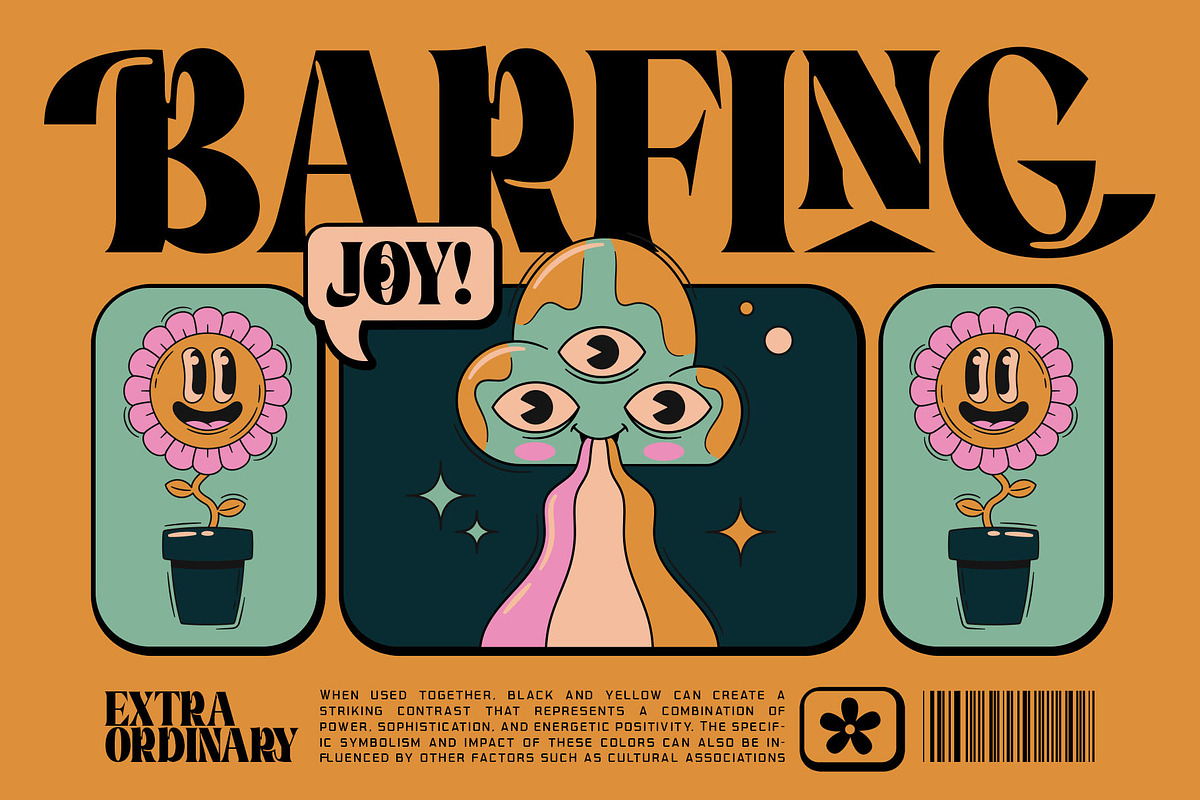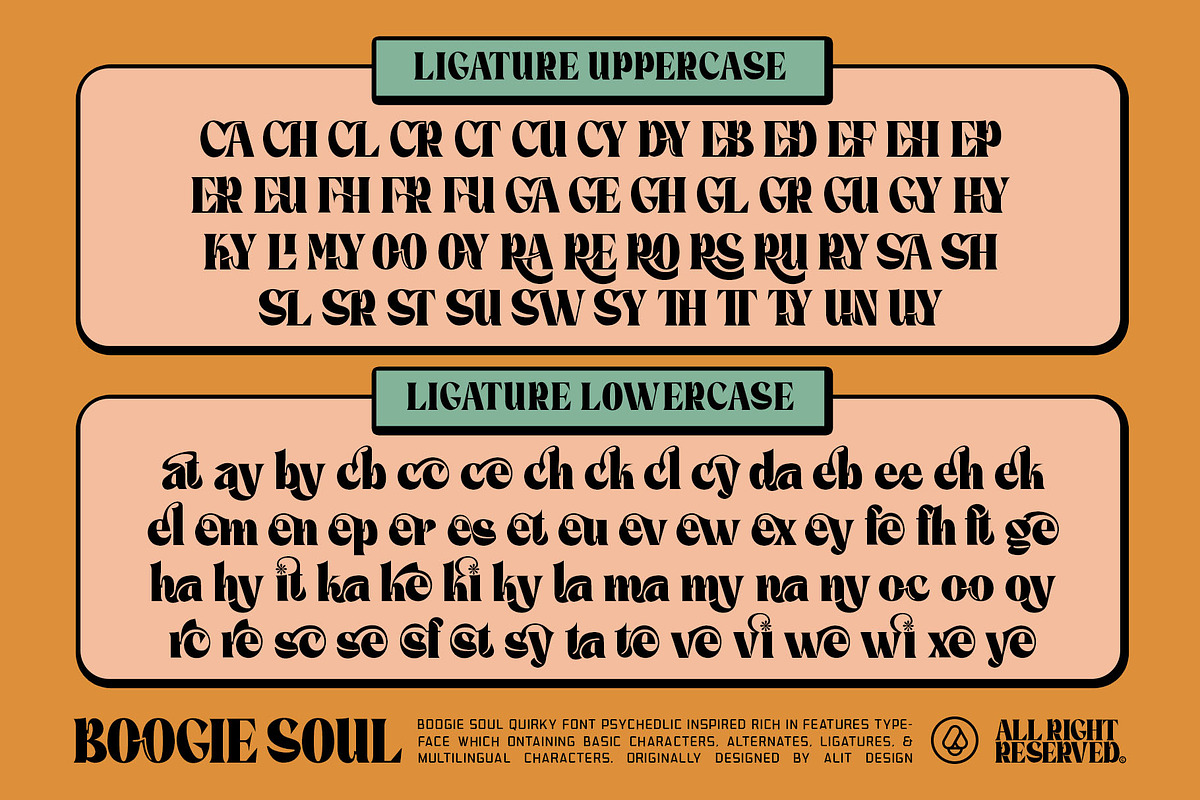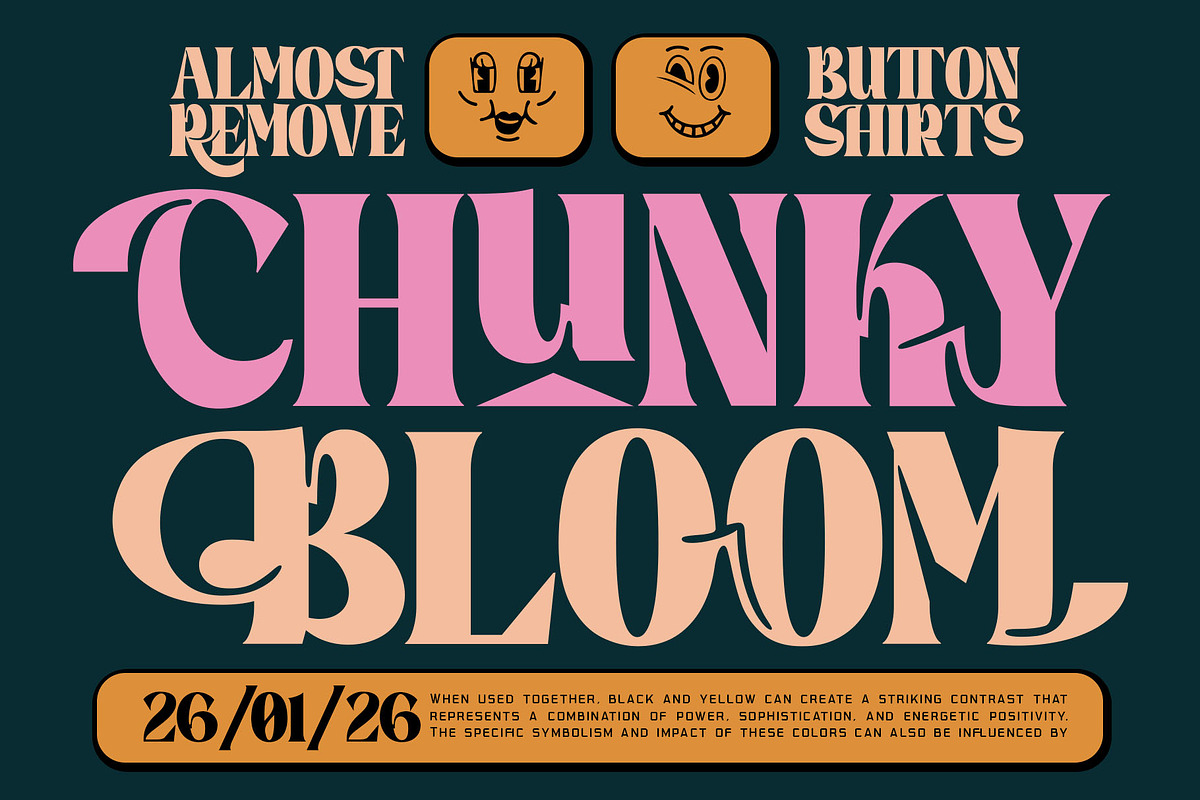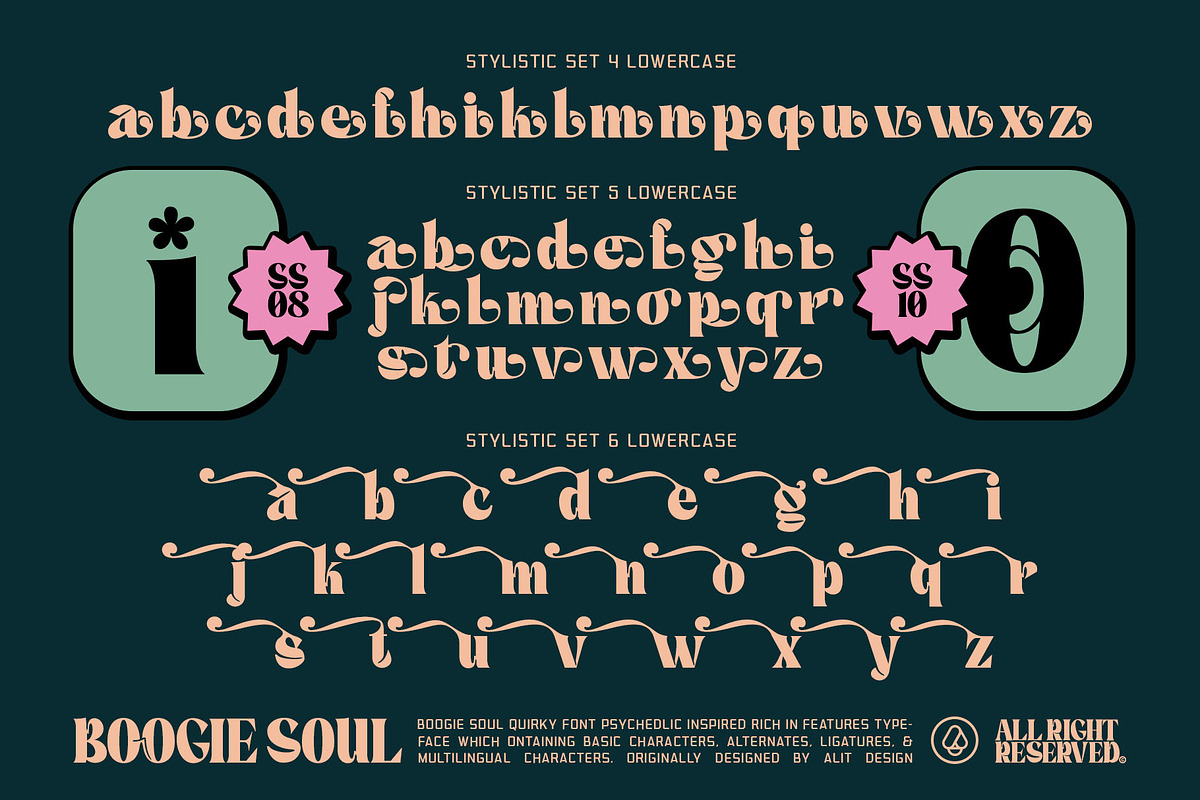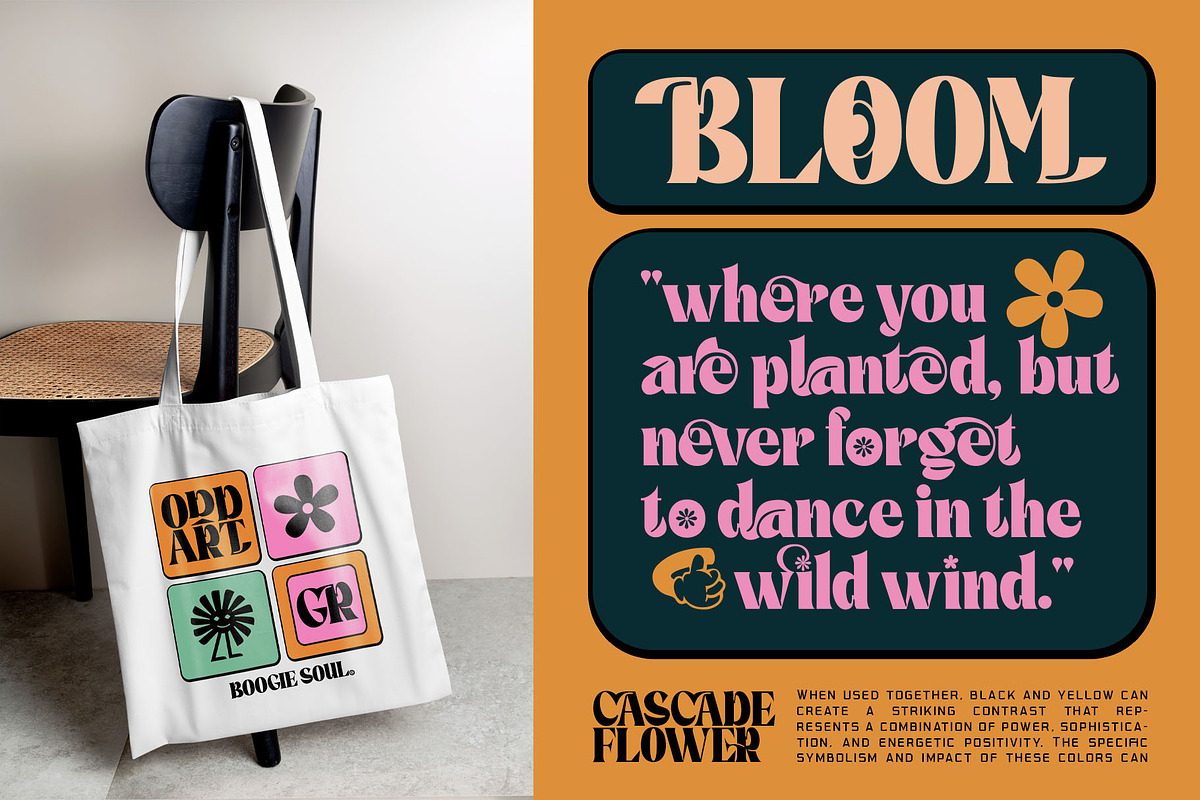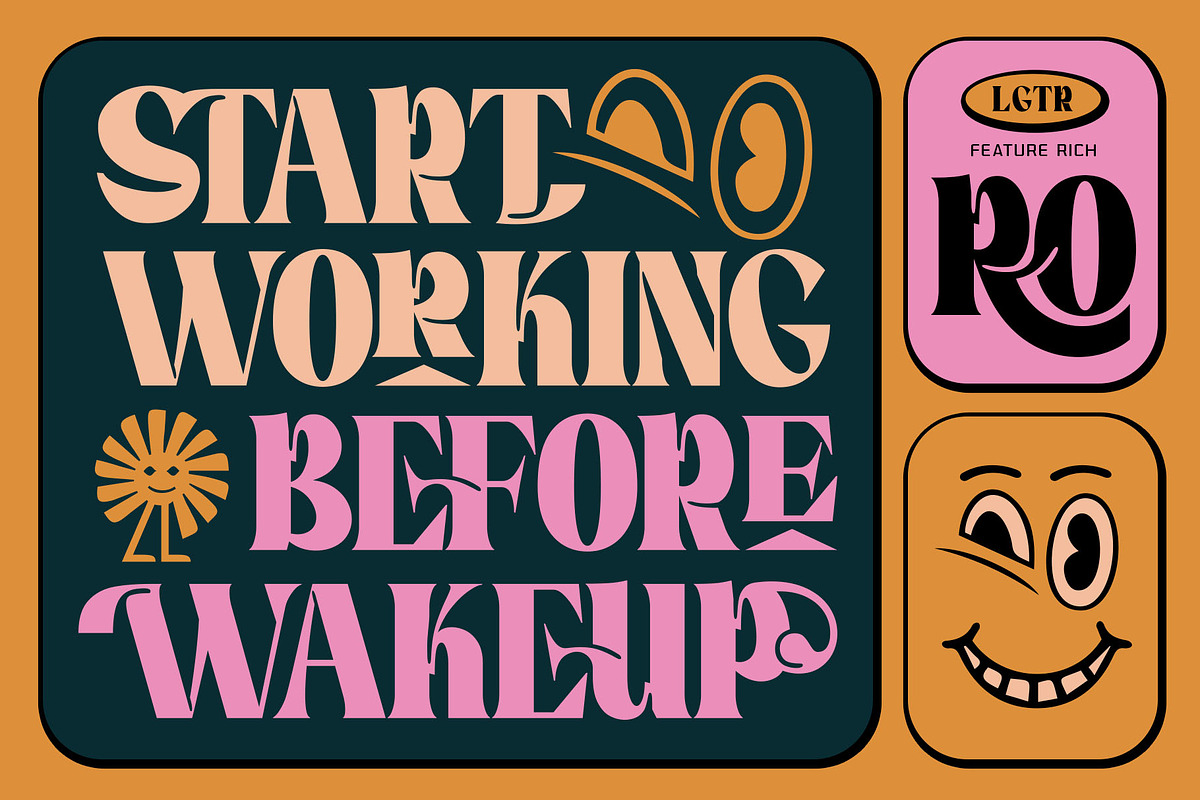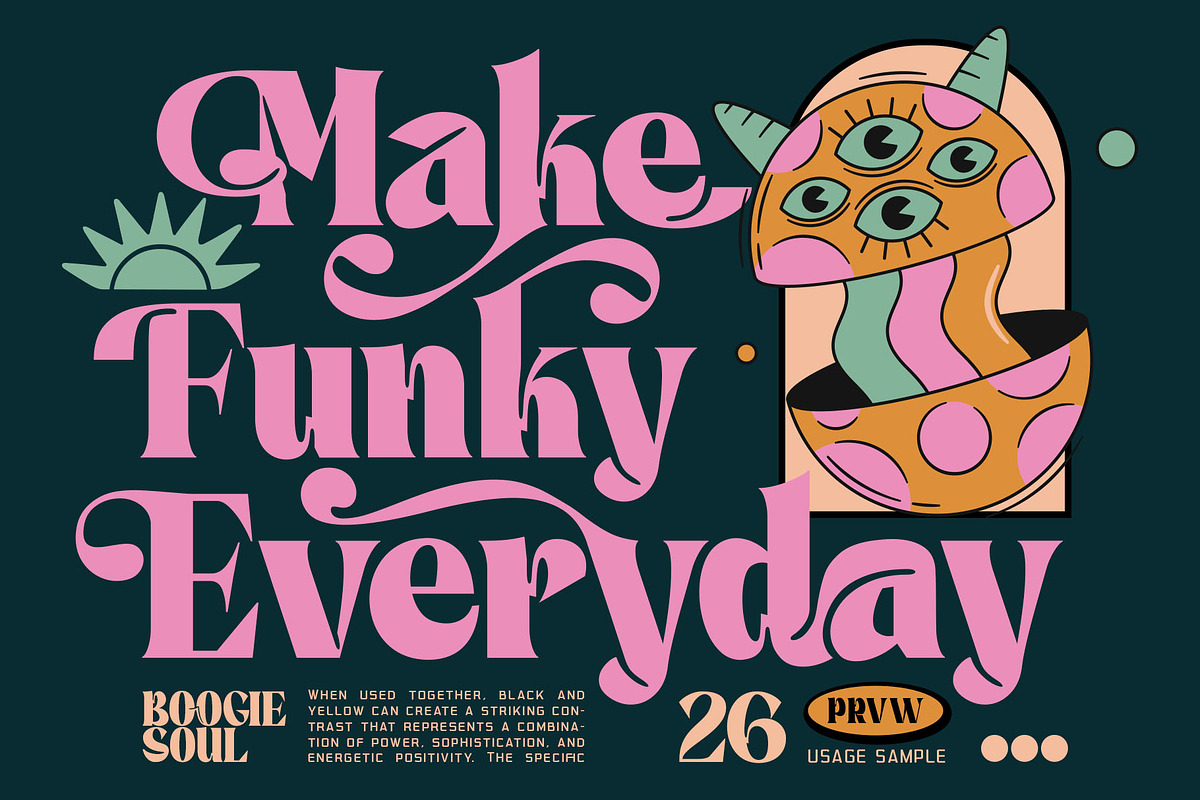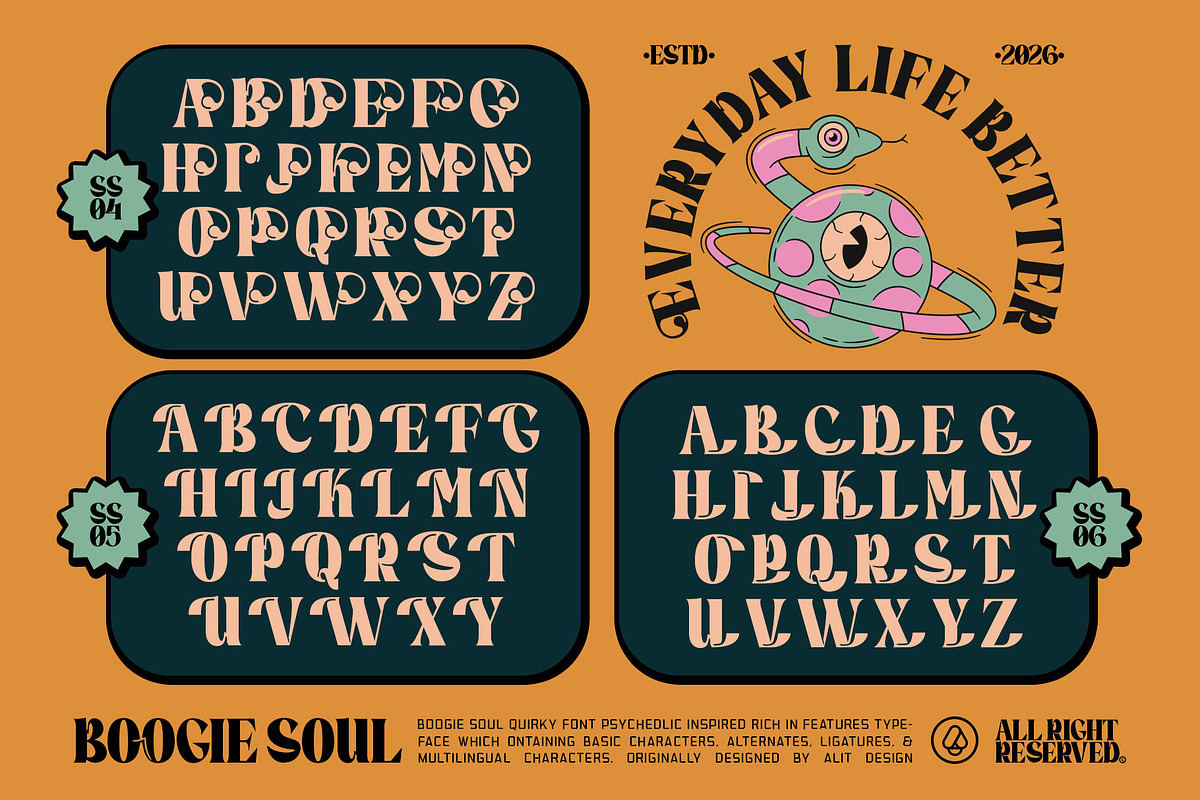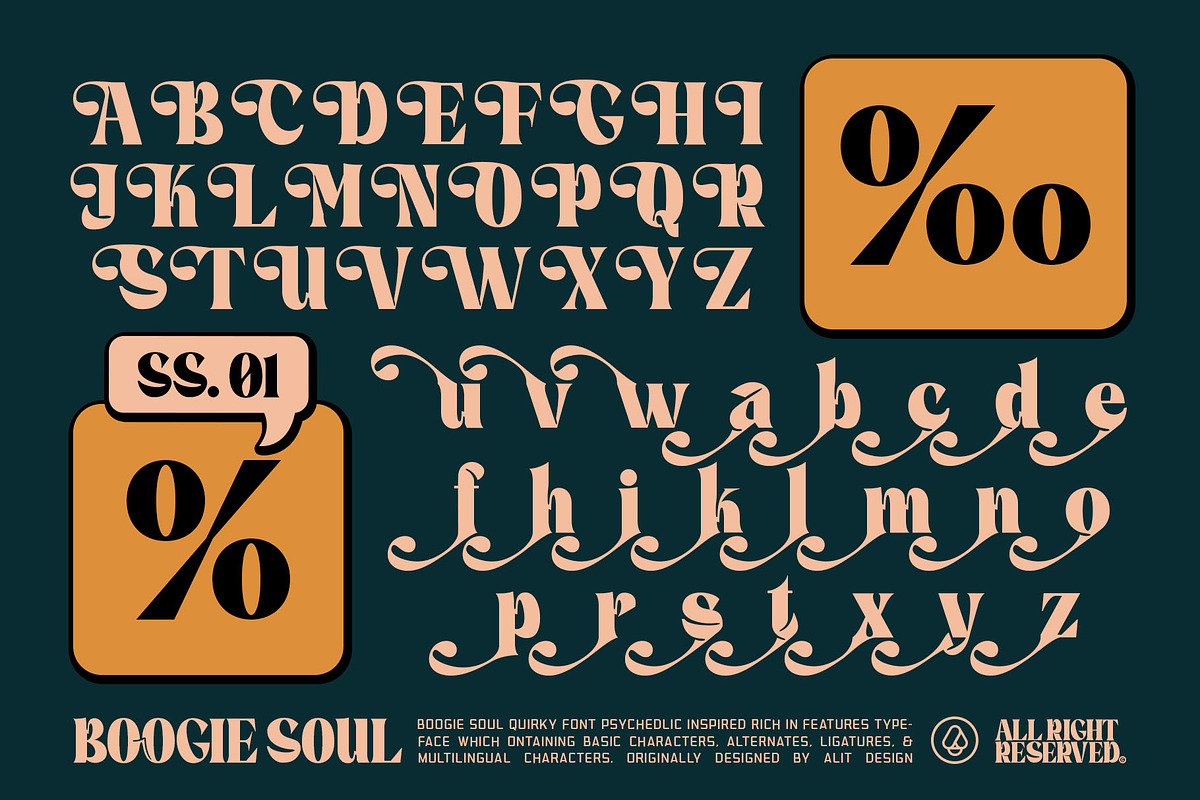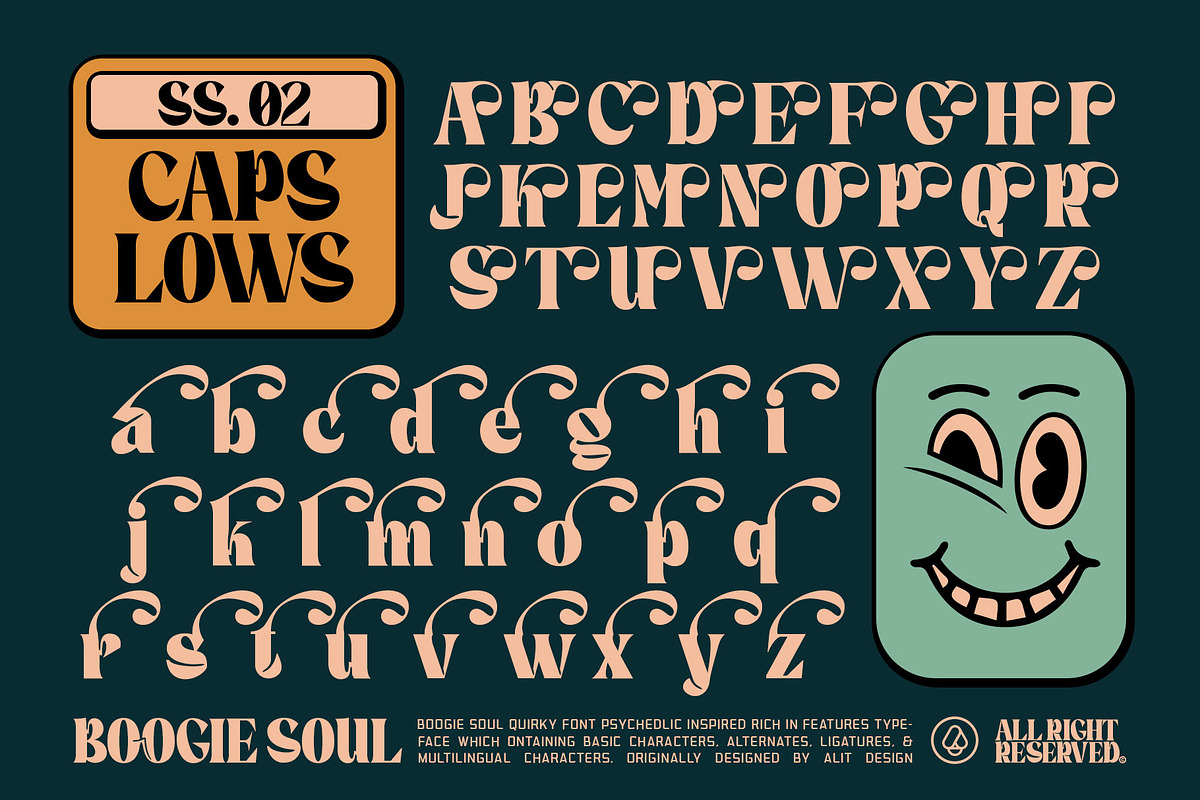
Boogie Soul Typeface
Boogie Soul – The Ultimate Psychedelic & Quirky Display Font
Step into the groove and let your designs dance!
Introducing Boogie Soul, a typographic time machine that captures the free-spirited energy of the 1960s and the funky bold aesthetics of the 1970s. This isn't just a font; it is a complete design system built to inject personality, quirkiness, and pure "soul" into your visual projects.
Designed with high-contrast strokes and liquid curves, Boogie Soul bridges the gap between vintage nostalgia and modern eccentricity. Whether you are designing a band poster, a streetwear brand, or a playful logo, this font ensures your message doesn't just sit there—it performs.
- Insane Versatility (981 Glyphs!): With nearly 1,000 glyphs at your fingertips, you are never stuck with a single look. Boogie Soul is packed with OpenType features, allowing you to customize almost every letter to fit your specific layout.
- The "Psychedelic" Factor: Use the standard characters for a bold, retro look, or switch to the Stylistic Sets (SS01 - SS10) to unleash swirls, flowers inside letters, distinct swashes, and experimental shapes.
- Quirky Bonuses Included: We’ve included a set of matching dingbats and illustrations (mascots, funky hands, psychedelic flowers, and retro eyes) to help you build complete compositions in seconds.
- Readable Yet Radical: Despite its playful nature, the core architecture of the font remains legible, making it perfect for headlines that need to be read and felt.
- Boogie Soul Regular: The core font with uppercase, lowercase, numbers, and punctuation.
- Extensive Stylistic Sets (SS01–SS10): Access alternate characters ranging from elegant swirls to flower-power decorative letters.
- Ligatures & Swashes: For that custom, hand-lettered feel.
- Multilingual Support: Support for a wide range of languages.
- Bonus Vector Elements: A collection of retro mascot and symbol illustrations (as seen in the previews).